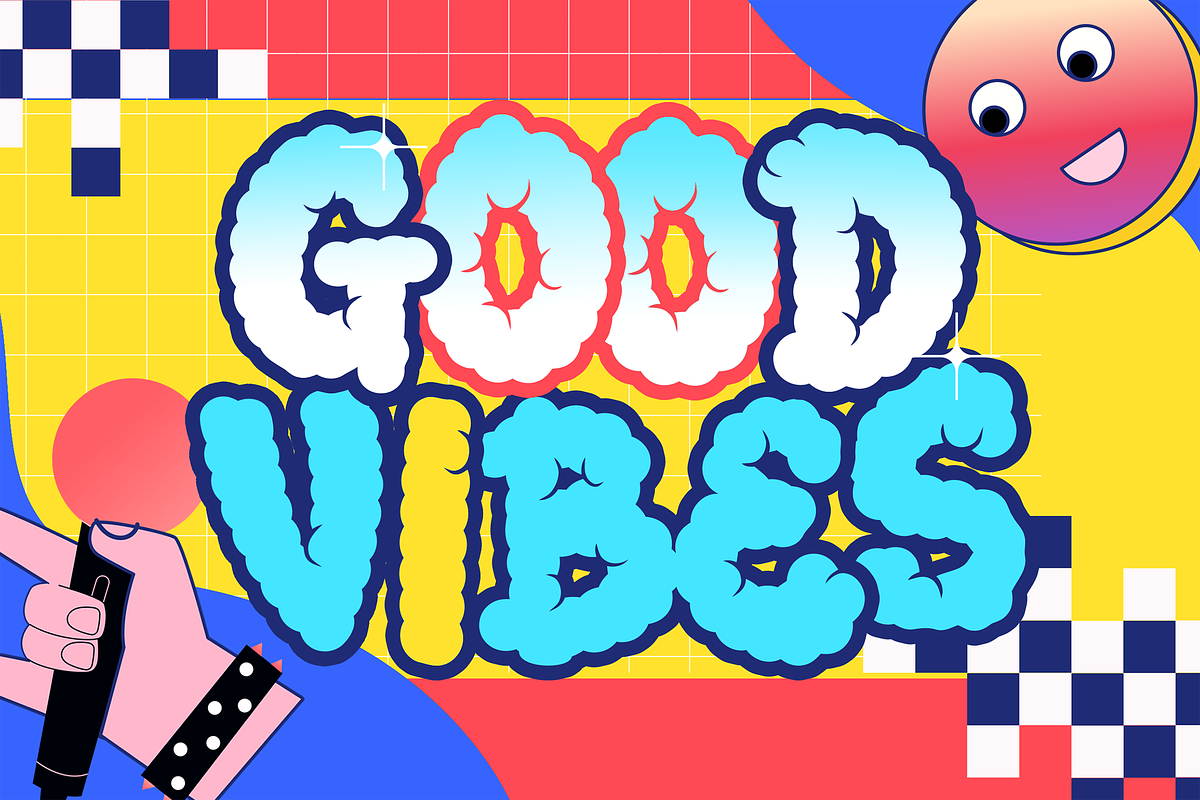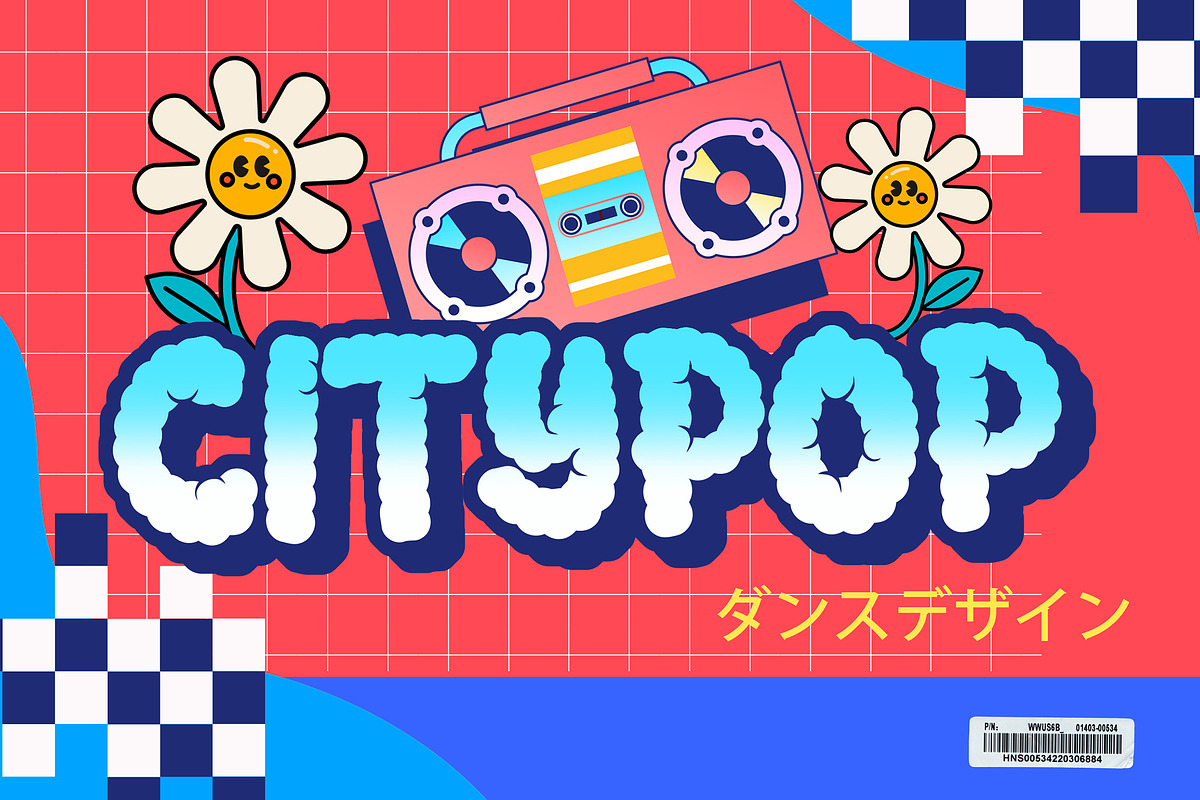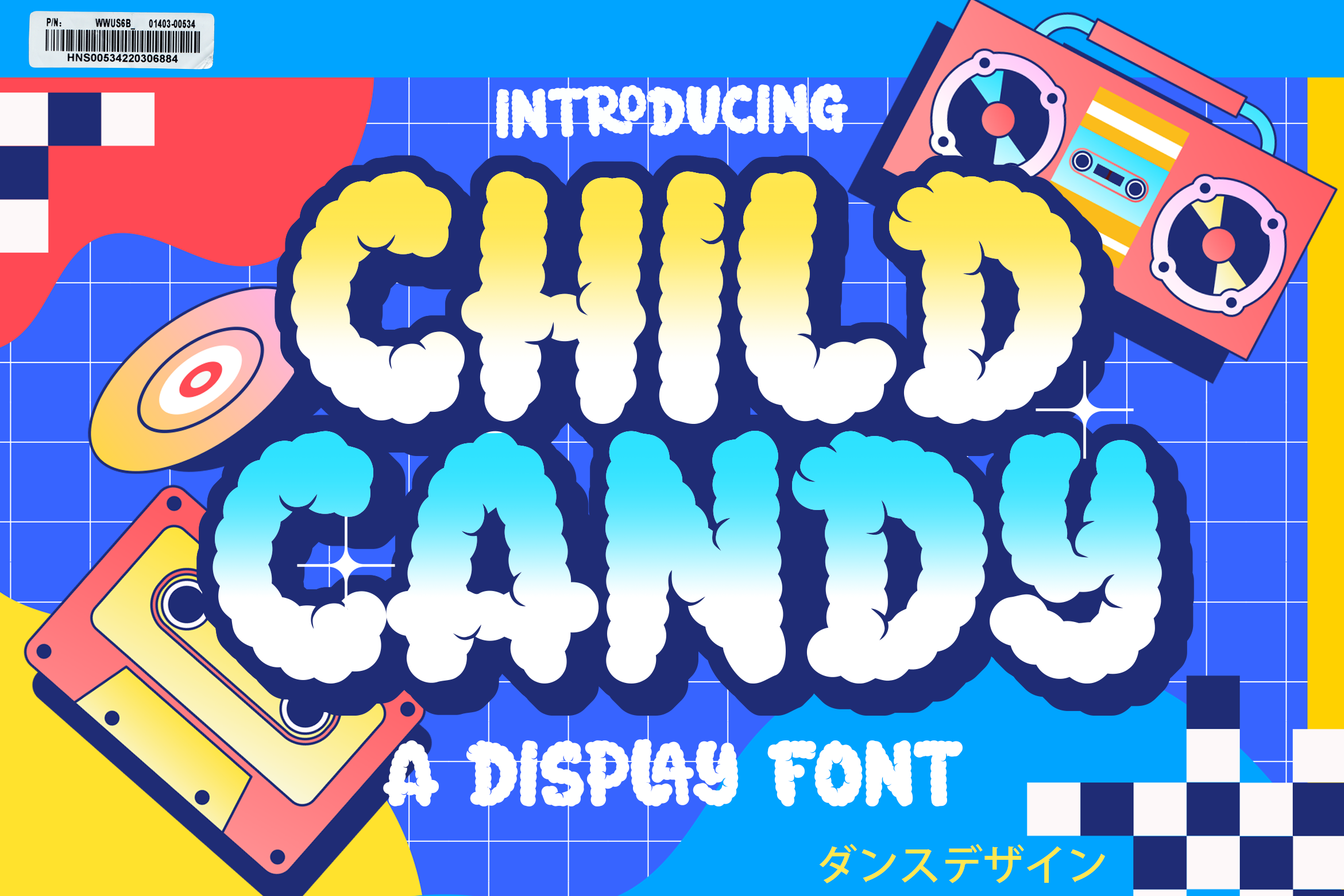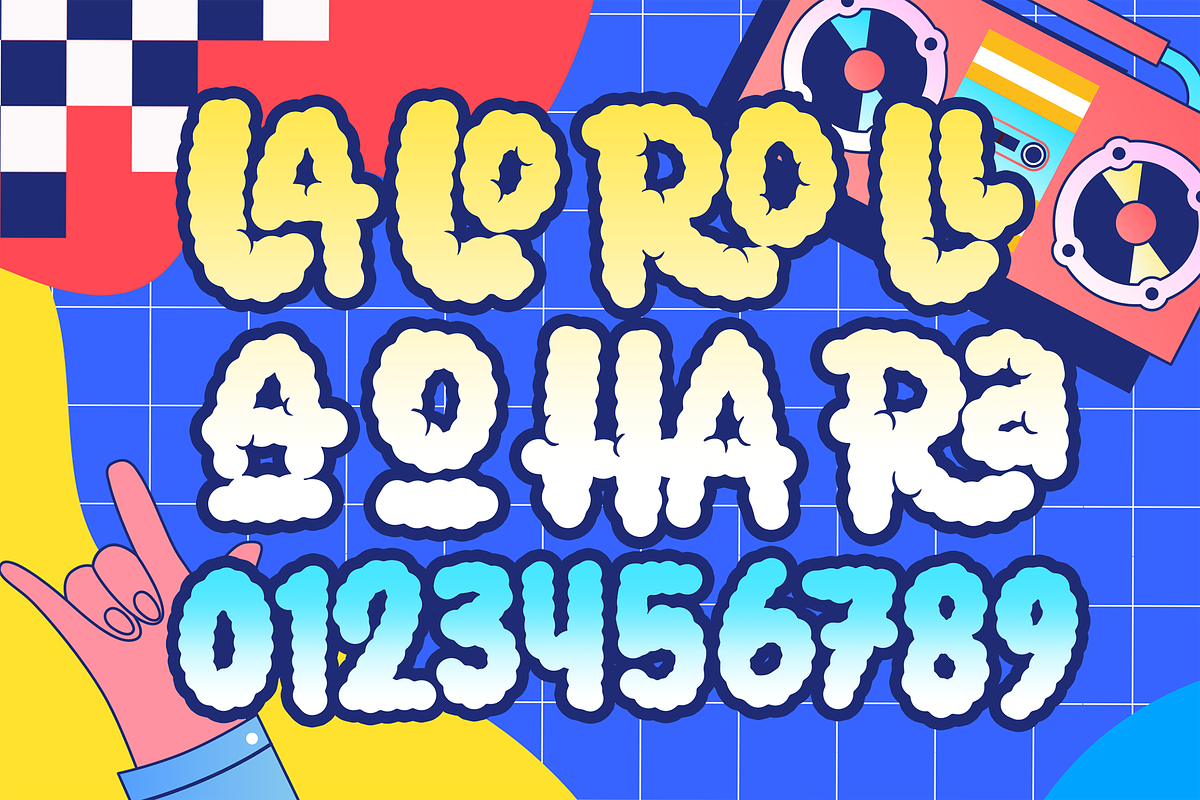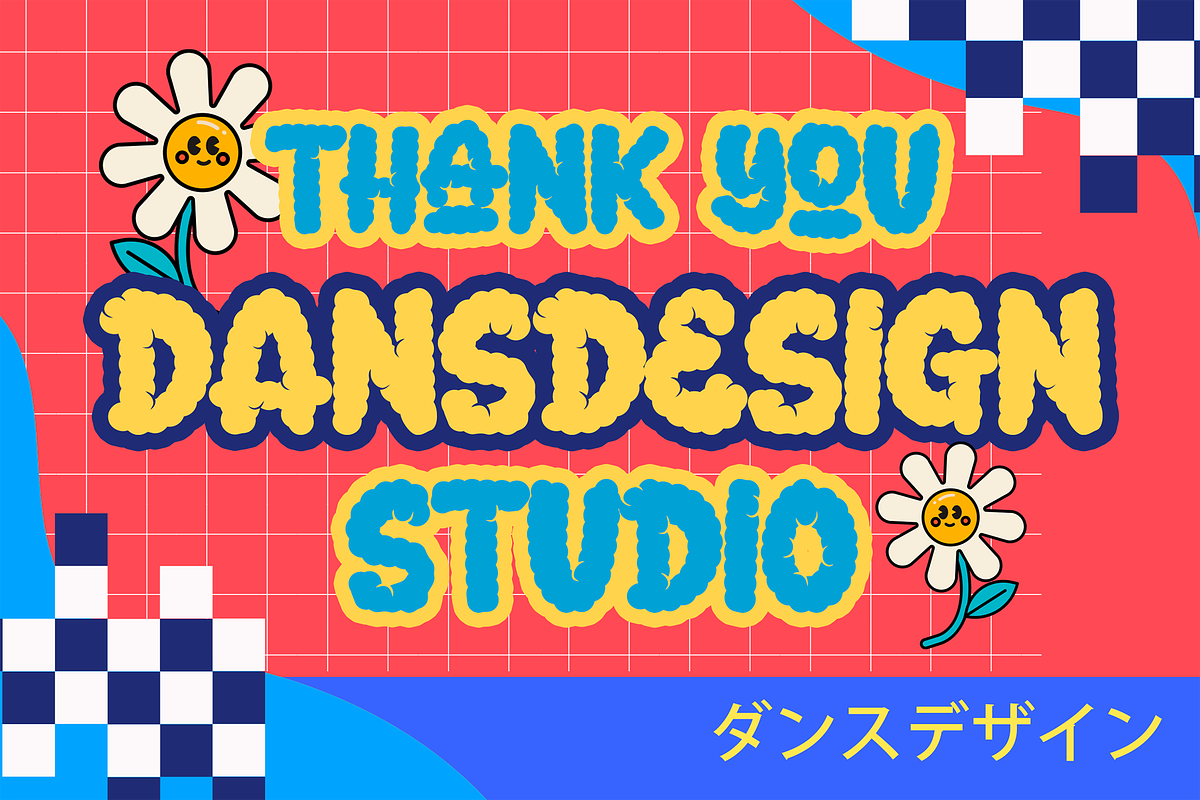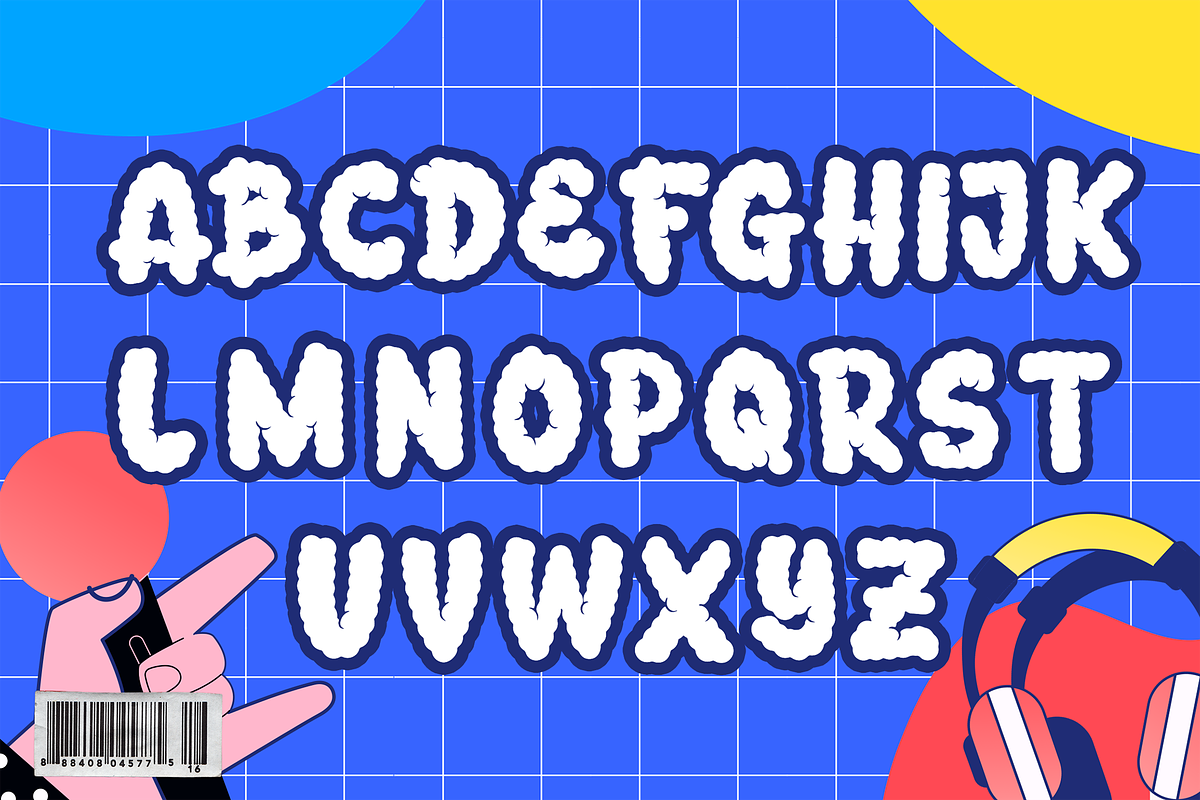
Child Candy CityPop Display Font
Child Candy City Pop Display Fonti Font a distinct, highly detailed. City Pop Display Font. It would make a great choice for exquisite retro-urban designs, business branding, logos, Apparel designs, and more.